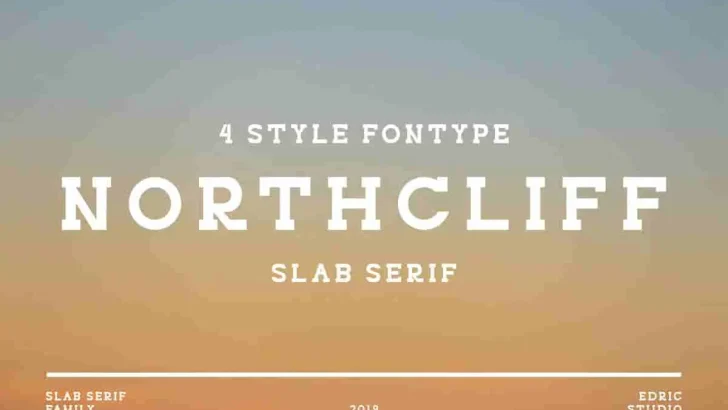
Northcliff Modern Serif Fonts
NORTHCLIFF! This is a new modern serif font with 4 yes FOUR styles! Regular, shadow, stencil and stroke from EdricStudio